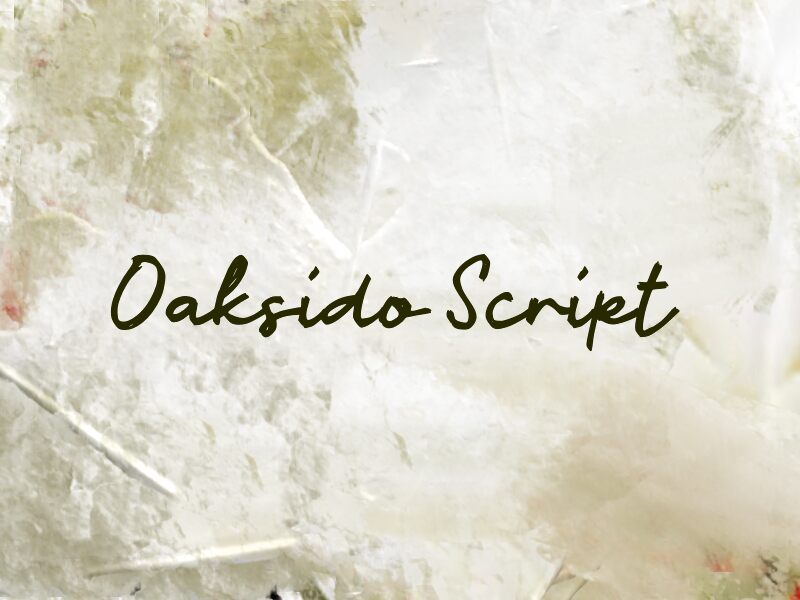
Oaksido Script font by wep is a handwritten free font with a personal use license. An informal font with casual informal style, this one gets its inspiration from handwritten form. Oaksido Script font is highly expressive, inviting, organic, personal, and approachable. It appears relaxed, warm, and spontaneous with a natural calligraphic feel.
Oaksido Script is suitable for product packaging, branding, advertising, brochure, covers, posters, and visual identity. Its unique lettering will provide captivating results to special occasion and event invitations for weddings, birthdays, parties, and more.
Oaksido Script is a beautiful and versatile free font that can elevate your design projects. This handwritten typeface combines elegant curves with a modern touch, making it perfect for various applications such as invitations, branding, and posters. With its stylish design, Oaksido Script adds a unique flair to any text.